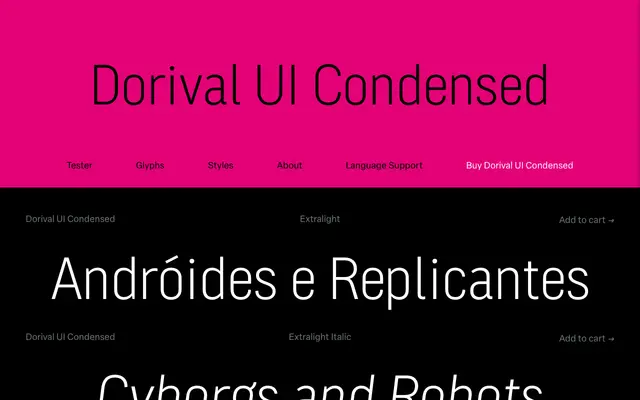
Dorival UI Condensed
Blackletra · Daniel Sabino, Lucas Gini · 2024
A condensed, DIN-influenced sans with multiplexed spacing, meaning all weights occupy identical space in the layout to prevent text reflow in digital interfaces.
Designed by Daniel Sabino and Lucas Gini, this is the condensed width of the Dorival UI family, released in 2024. Its defining technical feature is multiplexed spacing: every weight shares the same glyph widths and kerning, so switching weights in a UI never triggers layout shifts. The design tempers DIN 1451's strict geometry with diagonal terminals and a touch of contrast, keeping it readable across both screen interfaces and printed material.
Loosely derived from the engineered geometry of DIN 1451, with humanistic touches such as diagonal terminals and slight stroke contrast, placing it firmly in the geometric sans tradition.